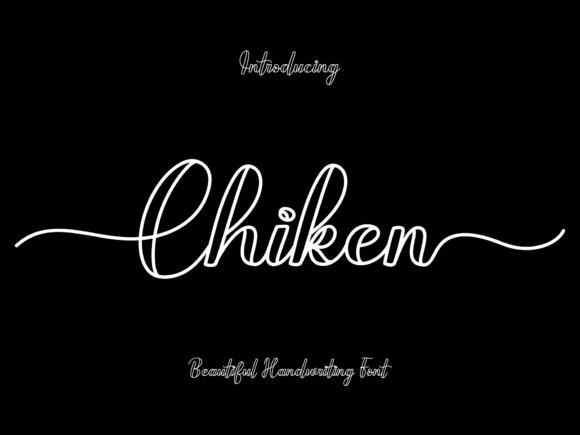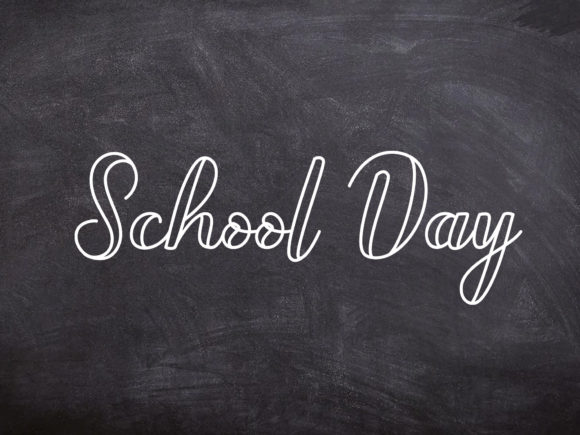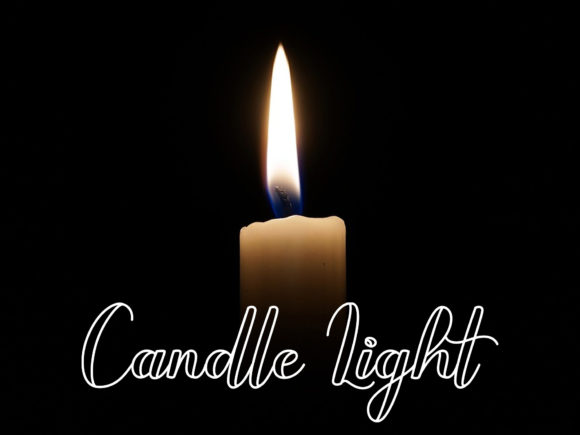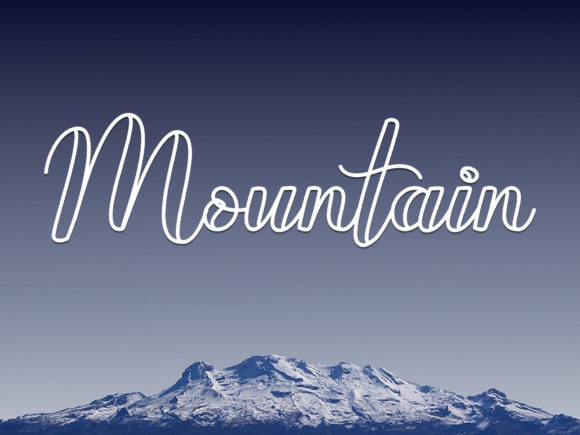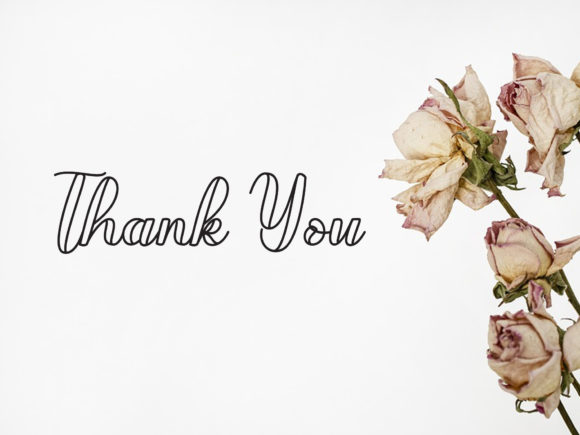
Chiken Font
Chiken is a delicate handwritten font that has been meticulously crafted to bring a cool and unique design to your projects. Its versatility makes it suitable for various applications, including writing letters, invitations, labeling food products, creating titles, and more.
The delicate nature of Chiken’s script adds a touch of sophistication and uniqueness to your designs. Whether you’re working on personal correspondence or designing product labels, this font is created to provide a stylish and eye-catching typographic element.
One notable feature of Chiken is its PUA encoding, allowing easy access to a wide range of amazing glyphs and ligatures. This feature enhances the creative potential of the font, providing designers with the flexibility to incorporate unique characters and flourishes seamlessly.
In summary, Chiken is more than just a font; it’s a delicate and PUA encoded design asset that elevates your projects with its cool and unique handwritten style. Whether used for letters, invitations, food products, titles, or other applications, Chiken stands out as a font that combines delicacy with a touch of individuality.